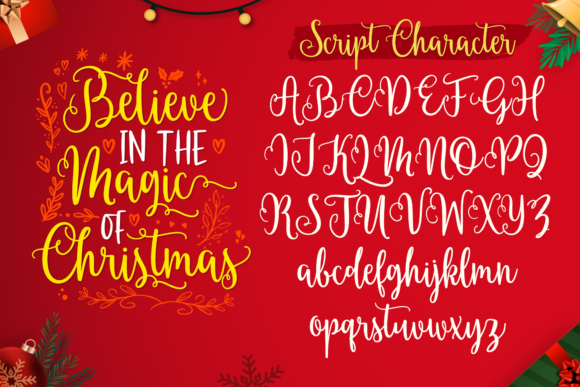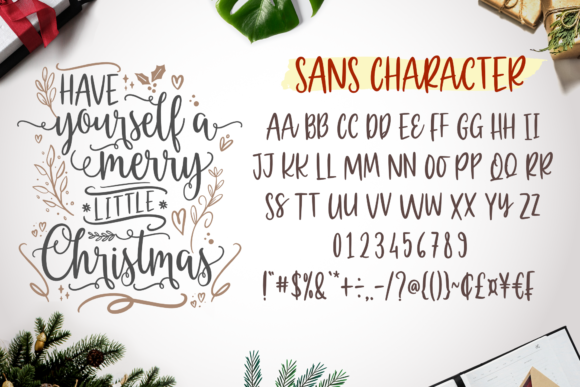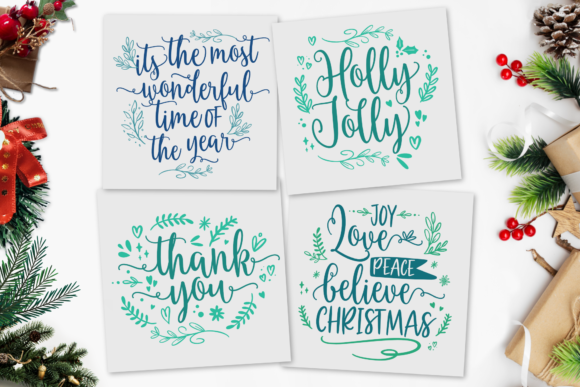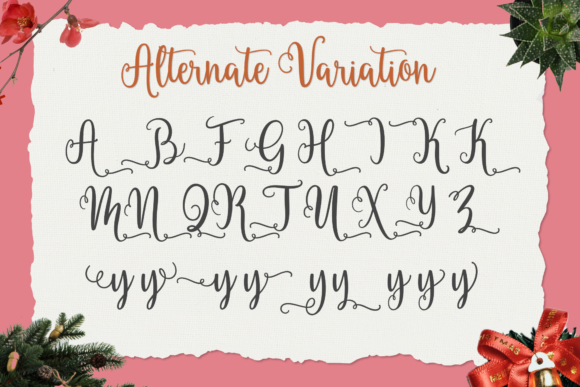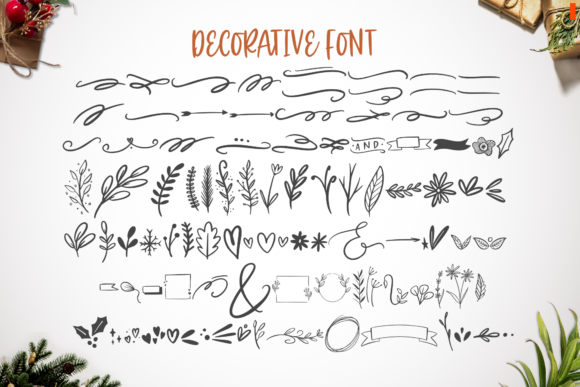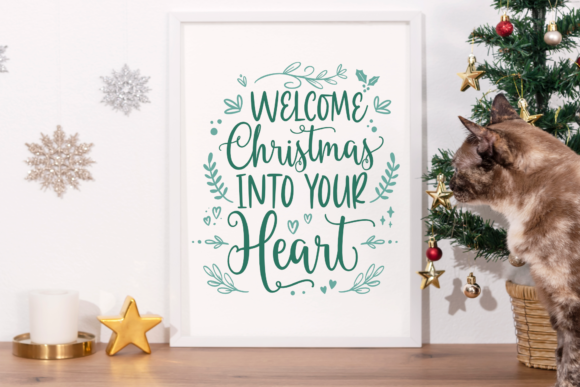
Introducing the Christmas Hand-lettered Trio Font: A Perfect Blend of Chic and Cheer
Are you looking for a font that can add a touch of elegance and festivity to your crafts? Look no further than the Christmas Hand-lettered Trio Font! This delightful font consists of three carefully designed fonts that complement each other perfectly, making them ideal for a wide range of creative projects. In this article, we’ll take a closer look at the features and benefits of the Christmas Hand-lettered Trio Font and explore how it can elevate your designs.
A Trio of Fonts, Endless Possibilities
The Christmas Hand-lettered Trio Font is a collection of three unique fonts that are designed to work together in harmony. Each font has its own distinct character, but they share a common thread – a playful, hand-lettered style that’s perfect for adding a personal touch to your crafts. Whether you’re creating holiday cards, gift tags, or social media graphics, this trio of fonts has got you covered.
One of the standout features of the Christmas Hand-lettered Trio Font is its versatility. You can use all three fonts together to create a cohesive look, or mix and match them to add visual interest to your designs. The fonts are also perfect for use in a variety of craft projects, from paper crafting and scrapbooking to DIY gifts and home decor.
Key Features of the Christmas Hand-lettered Trio Font
- Three unique fonts: The Christmas Hand-lettered Trio Font consists of three carefully designed fonts that complement each other perfectly.
- Hand-lettered style: Add a personal touch to your crafts with a playful, hand-lettered style that’s perfect for the holiday season.
- Versatile: Use the fonts together or apart to create a range of unique and creative designs.
- Perfect for crafts: Ideal for a wide range of craft projects, from paper crafting and scrapbooking to DIY gifts and home decor.
How to Use the Christmas Hand-lettered Trio Font
The Christmas Hand-lettered Trio Font is easy to use and can be incorporated into a variety of creative projects. Here are a few ideas to get you started:
- Holiday cards: Create beautiful, one-of-a-kind holiday cards using the Christmas Hand-lettered Trio Font.
- Gift tags: Add a personal touch to your gifts with custom gift tags featuring the Christmas Hand-lettered Trio Font.
- Social media graphics: Use the Christmas Hand-lettered Trio Font to create festive social media graphics that will stand out from the crowd.
- Paper crafting: Incorporate the Christmas Hand-lettered Trio Font into your paper crafting projects, such as scrapbooking and card making.
| Font Name | Christmas Hand-lettered Trio Font |
| Author | Holydie Studio |